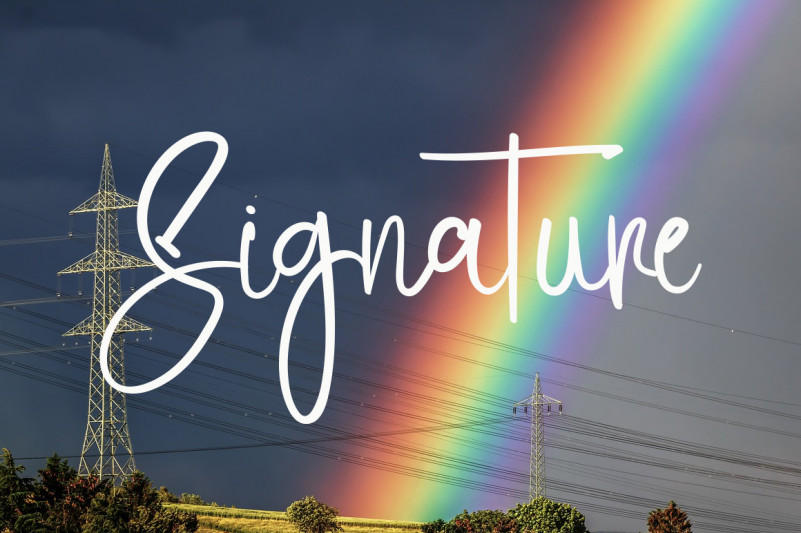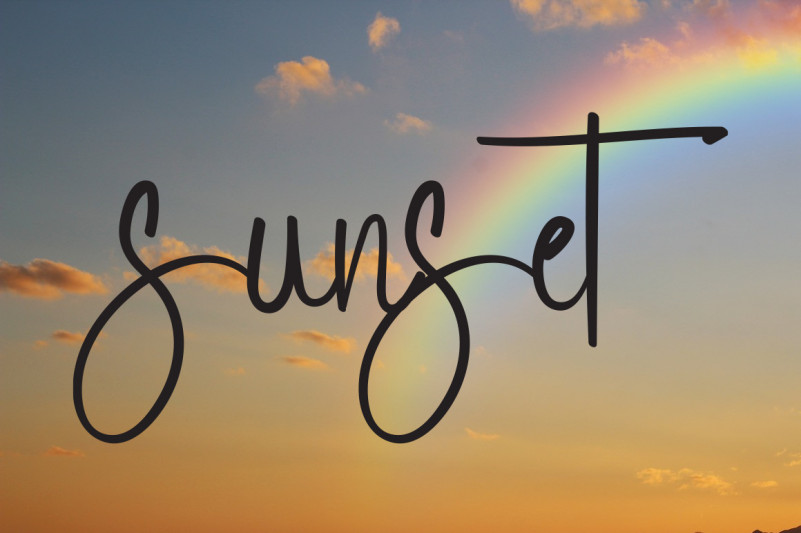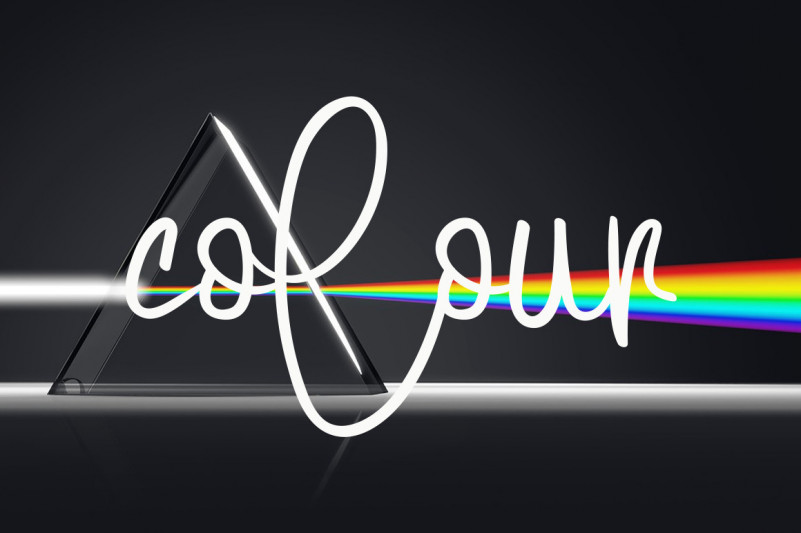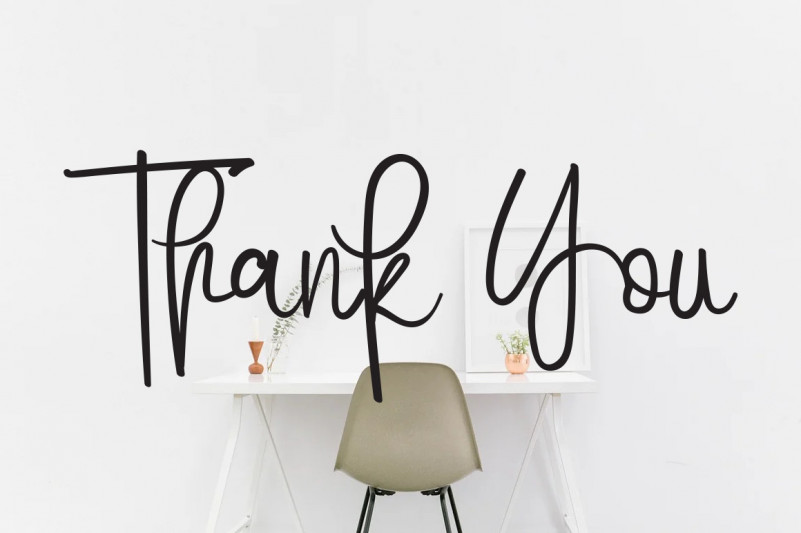
Rainbow Flower Font is a relaxed, readable and stylish script font. Rainbow Flower Font is defined by smooth curves and is perfect for fashion branding or editorial designs. Add it confidently to your projects, and you will love the results.